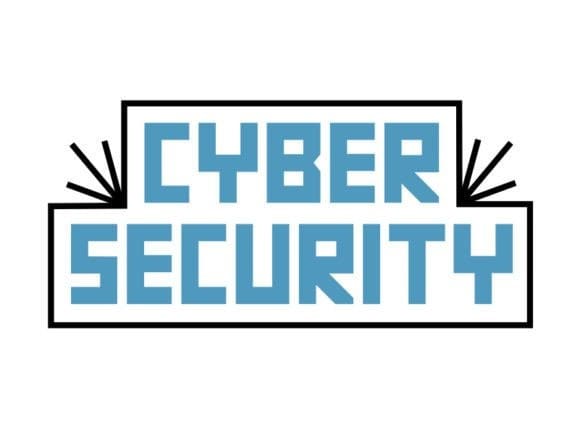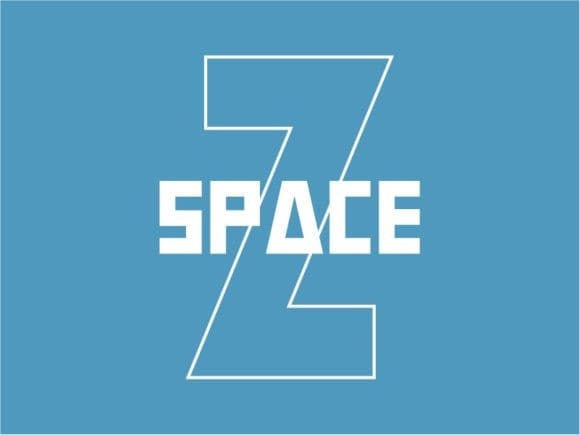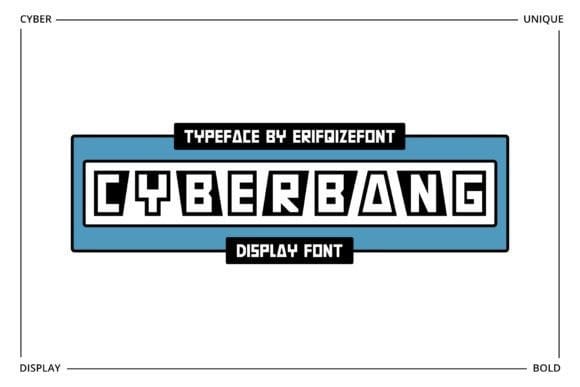
Cyberbang Font
Cyberbang Font is a cool cyber display font with a bold shape. Whatever the topic, this font will be a great asset to your font library, as it has the potential to enhance any creation